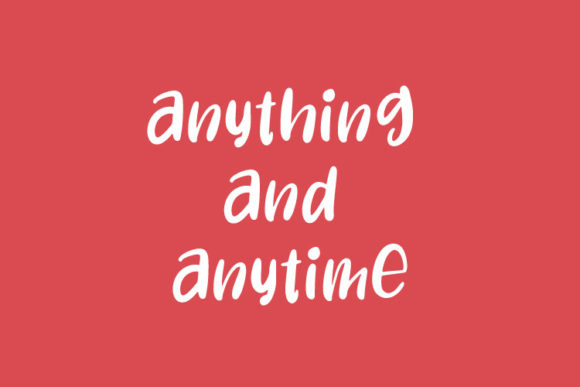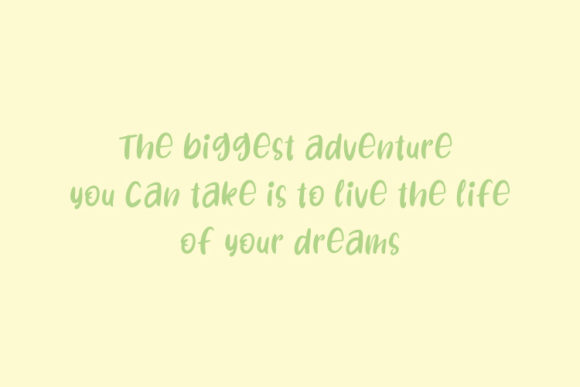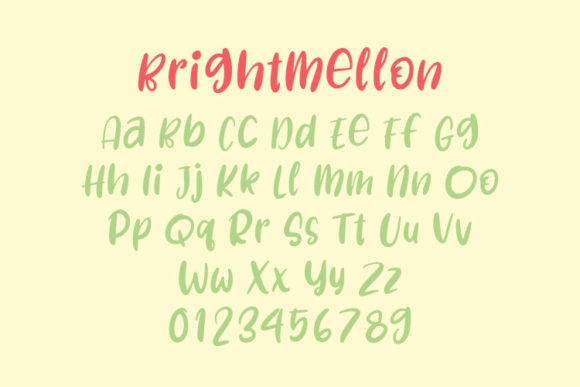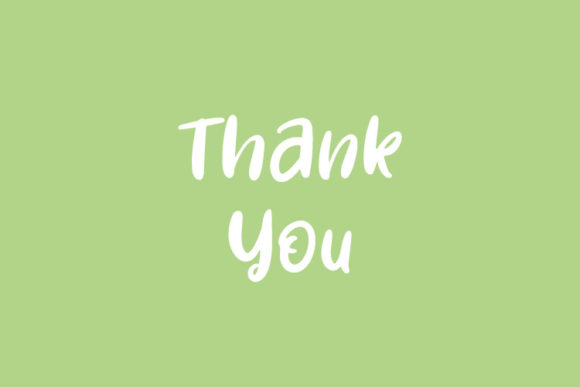
Adding a Splash of Personality to Your Designs
As a designer, there’s nothing quite like that ‘aha’ moment when a project starts to come together. You’re brainstorming ideas, experimenting with different styles, and suddenly, everything clicks. That’s exactly what happened when I stumbled upon the Bright Mellon Font. This charming, paint-brushed display font is a game-changer for anyone looking to add a personal touch to their designs.
Whether you’re creating fun themed whiteboard quotes or teaching materials, Bright Mellon Font is the perfect choice. Its authentic look and feel will transport your audience to a world of creativity and playfulness. But what really sets it apart is its versatility – from educational materials to marketing campaigns, this font is sure to make a lasting impression.
So, what makes Bright Mellon Font so valuable for designers? In short, its unique character and effortless charm will elevate your designs to the next level. With Bright Mellon Font on your side, you’ll be well on your way to creating designs that truly stand out.
Bright Mellon Font Key Features
- Unique Characteristics: Bright Mellon Font features a unique blend of modern and vintage elements, with clean lines, rounded edges, and a subtle texture that adds depth and visual interest.
Bright Mellon Font Review
Overall, I found the Bright Mellon Font to be a visually appealing choice for a wide range of applications, from headings to body text. ✨ Its modern design and clean lines make it an excellent option for anyone looking to add a touch of sophistication to their project.
The font is highly legible, even at smaller font sizes, and its x-height is well-balanced, making it suitable for both print and digital media. ✨ I also appreciate the subtle personality it brings to a design, adding a hint of warmth without overpowering the content.
While the Bright Mellon Font is a solid choice, there are some limitations to consider:
- ⚠️ Limited font weights: The font family is limited to a few weights, which may not be sufficient for designs requiring a wide range of typography options.
- ⚠️ Not suitable for all languages: As with many modern fonts, the Bright Mellon Font is optimized for Latin-based languages and may not be as effective for languages with non-Latin scripts.
Despite its limitations, I believe the Bright Mellon Font is a great addition to any designer’s toolkit. Its versatility, legibility, and modern aesthetic make it a solid choice for a wide range of projects. With a little creativity and attention to detail, designers can overcome the font’s limitations and create stunning designs that showcase its unique personality.
For best results, use Bright Mellon Font for headings and titles, and pair it with a clean sans-serif font for body text.
For best results, use Bright Mellon Font for bold headings and titles, and pair it with a clean sans-serif font for body text.
For best results, use Bright Mellon Font for headings and titles, and pair it with a clean sans-serif font for body text.